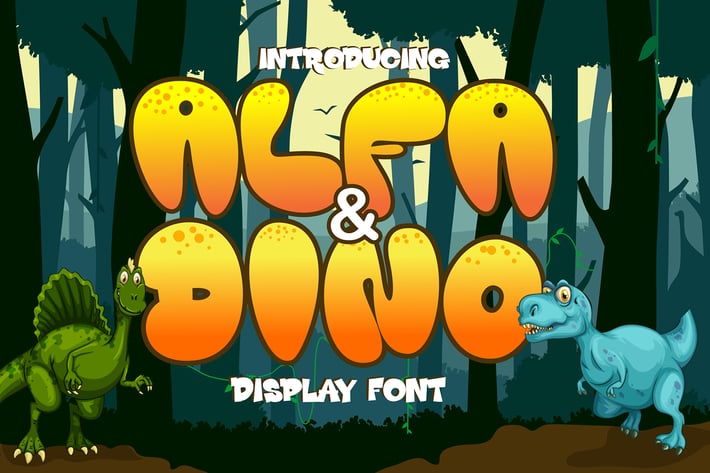
Alfa & Dino - Thick and bold display Font, It's friendly for design, kid stores, seasonal parties, or banners, fitting a wide range of contexts. Add it to your creative ideas and notice how it makes them stand out!